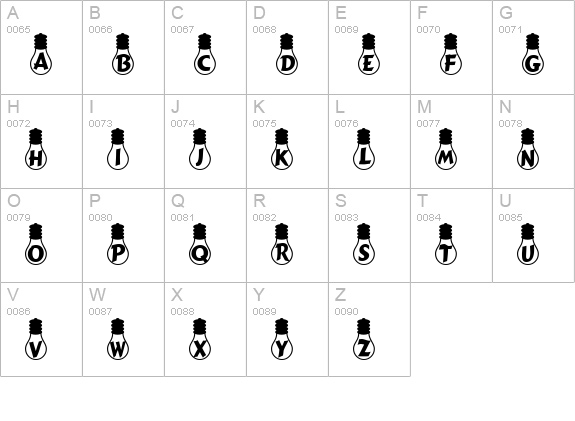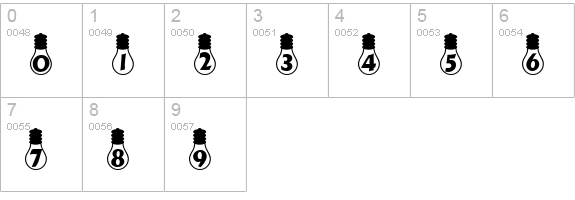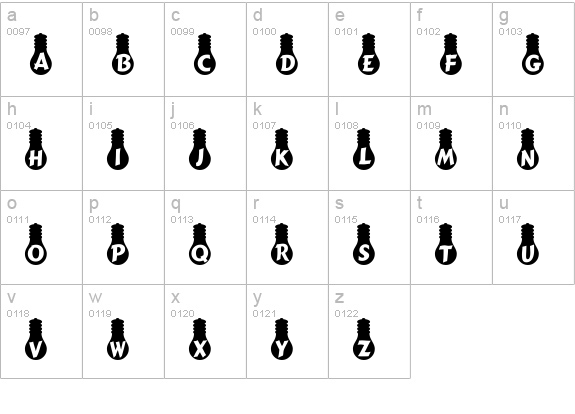
Armleuchter Heavy is a heavy, high-impact variant in the Armleuchter typeface family \xE2\x80\x94 well suited to high-impact headlines, posters, and display advertising.
Armleuchter Heavy is a bold and impactful font that commands attention with its strong and sturdy letterforms. Its thick strokes give a sense of power and authority, making it perfect for headlines, posters, and other designs that demand to be noticed. Despite its robust appearance, Armleuchter Heavy also exudes a sense of elegance and sophistication, making it a versatile choice for a variety of projects. What sets Armleuchter Heavy apart is that it is available for free download at FontsMarket.com. This means that you can easily access this striking font without any cost, allowing you to elevate your designs without breaking the bank. Don't miss out on the opportunity to add Armleuchter Heavy to your font collection and make a bold statement in your next project.